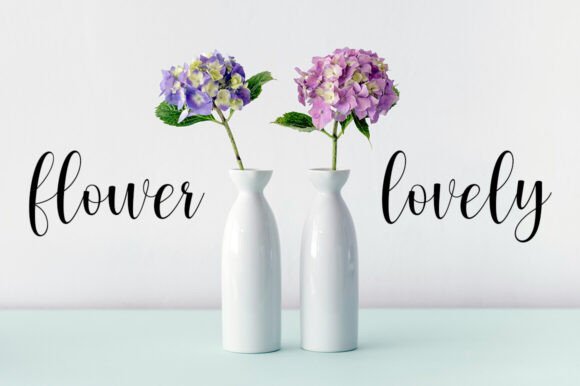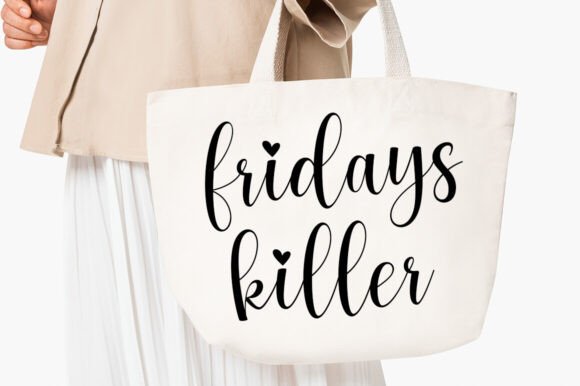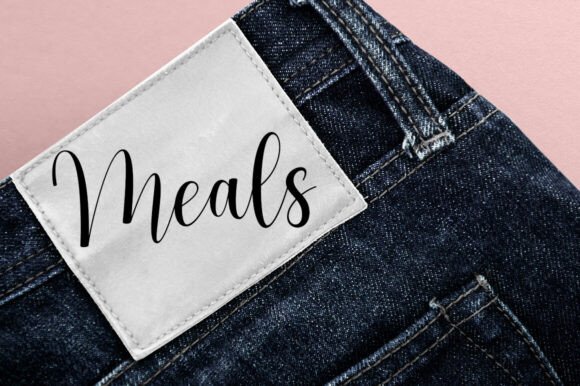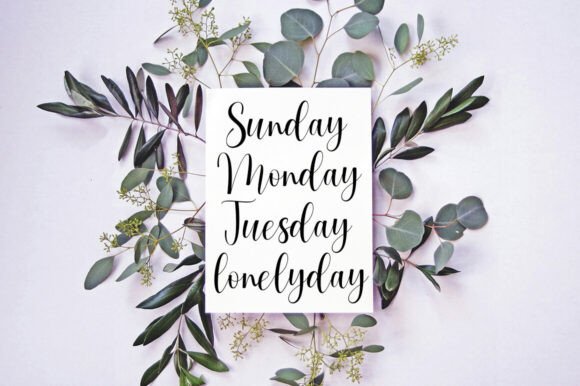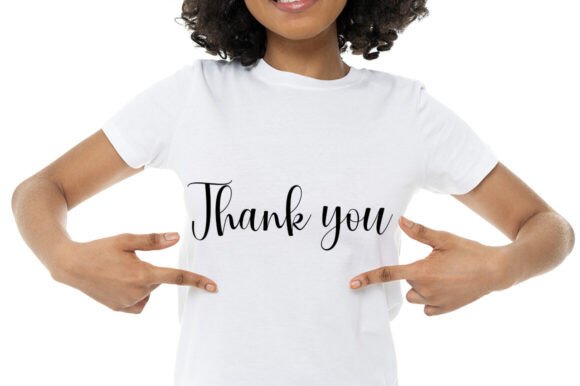
Introduction to Family Hubbies Font
Delve into the captivating allure of the Family Hubbies Script font, a harmonious fusion of contemporary calligraphy with a casual but sophisticated charm.
This font is adorned with eye-catching swashes that generate a unique aesthetic attractiveness, effortlessly breathing life into your designs The Family Hubbies Script font sparkles across an array of applications, its charm noticeable in everything from logo designs, product packaging, wedding cards, brand projects, arresting headlines, sleek signage, refined labels, artistic signatures, to book jackets, poster creations and meaningful quotes.
Key Features of Family Hubbies Font